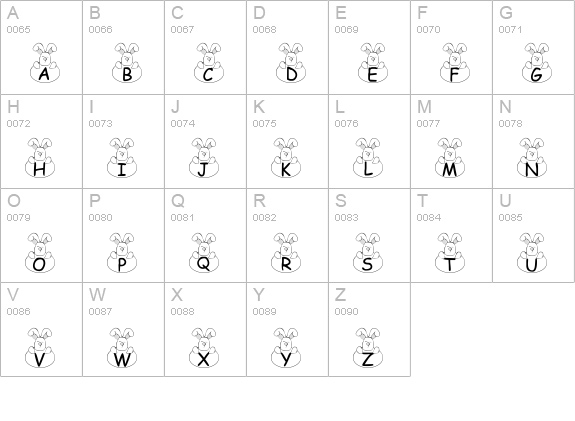
Introducing the captivating and endearing 101! Bunny Hug font, a delightful typeface that will bring a touch of whimsy and charm to any creative project. With its playful curves and adorable bunny-inspired glyphs, this font is sure to bring a smile to your face and a warmth to your designs. 101! Bunny Hug font is perfect for a wide range of applications, from children's books and posters to greeting cards and invitations. Its versatile nature allows it to effortlessly convey a sense of joy and playfulness, making it an ideal choice for any project that requires a touch of lightheartedness. And the best part? This enchanting typeface is available for free download at FontsMarket.com. Yes, you read that right - freely available! With just a few clicks, you can add this delightful font to your collection, ready to be used in all your creative endeavors. With its smooth curves and attention to detail, 101! Bunny Hug font is a true testament to the artistry of typography. Each letter is meticulously crafted, ensuring that every word you create with this font is a work of art in itself. Whether you're a professional designer or a hobbyist, 101! Bunny Hug font will undoubtedly become an essential tool in your creative arsenal. Its versatility, charm, and freely accessible nature make it a must-have font for anyone looking to add a touch of whimsy to their designs. So why wait? Head over to FontsMarket.com now and download 101! Bunny Hug font for free. Let this adorable typeface bring a dash of playfulness and joy to your next project, and watch as it captivates hearts and leaves a lasting impression.